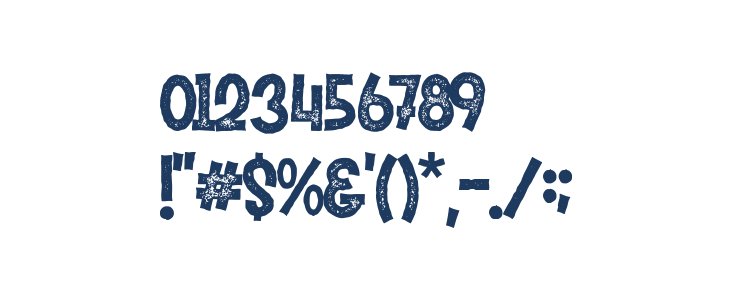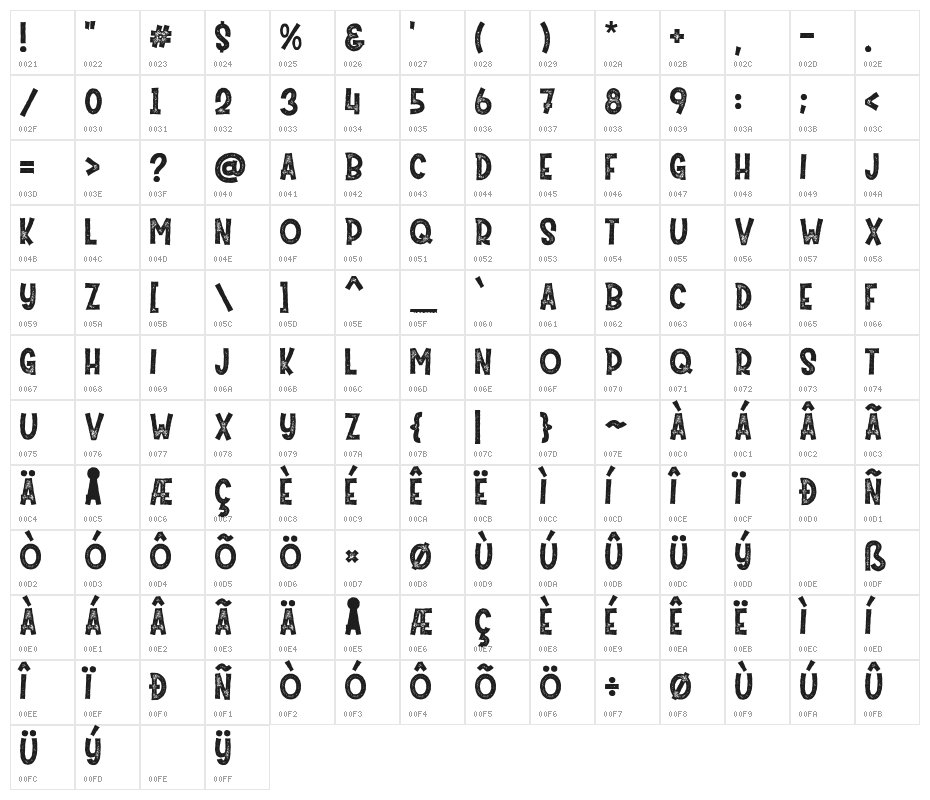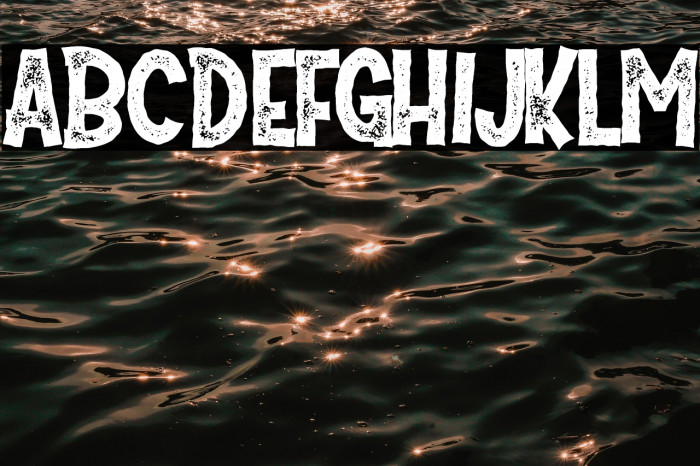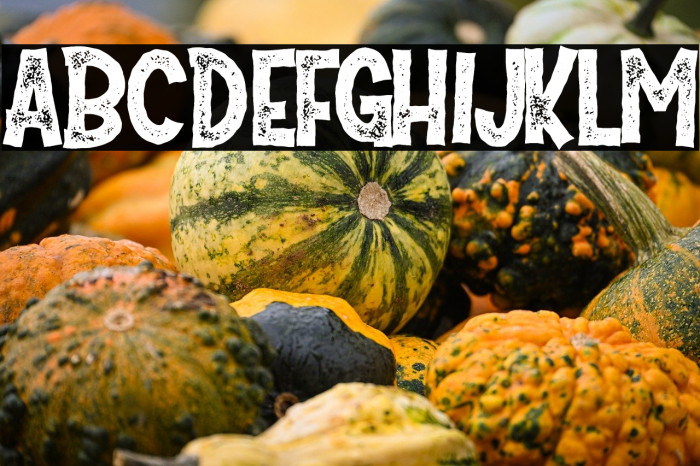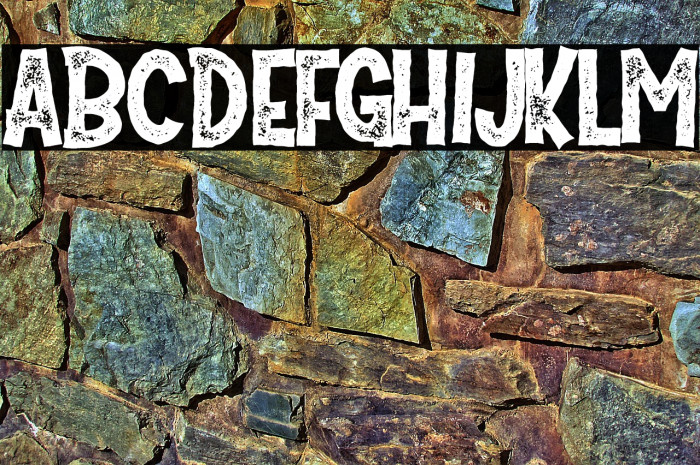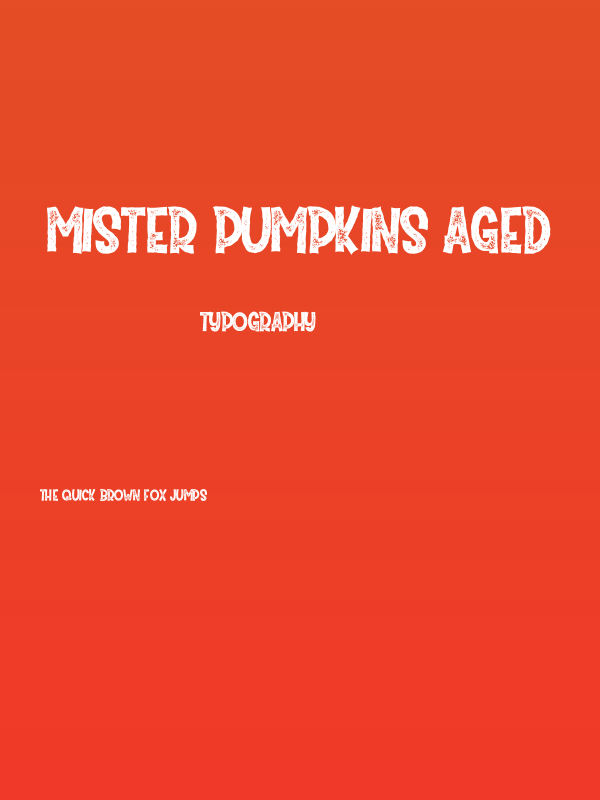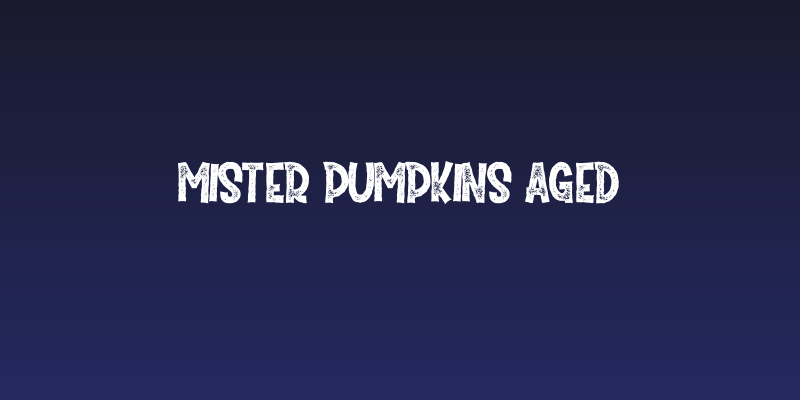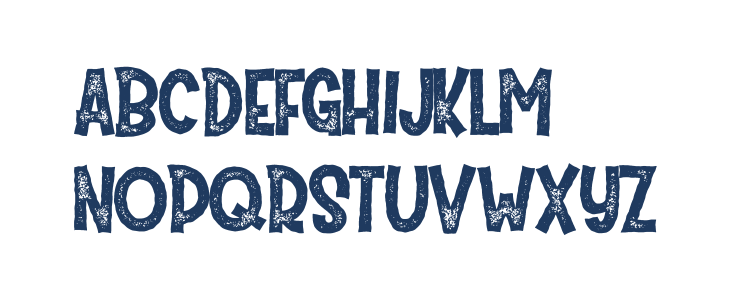
Mister Pumpkins Aged Font
Mister Pumpkins Aged Description
This font features a bold, distressed style with a textured, aged appearance. The characters are uppercase and lowercase with a slightly irregular, hand-drawn look, giving them a playful yet rugged feel. The numbers and special characters maintain this aesthetic, adding to the font's versatility. The rough edges and uneven texture create a vintage, worn-out effect, making it ideal for projects that require a rustic or grunge touch. The font's boldness ensures it stands out, while the distressed details add character and depth.
| Proposed Projects | Ideal for Halloween-themed designs, posters, vintage branding, and rustic signage. |